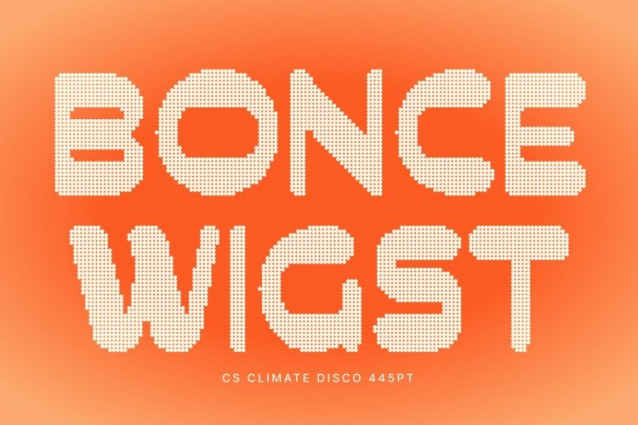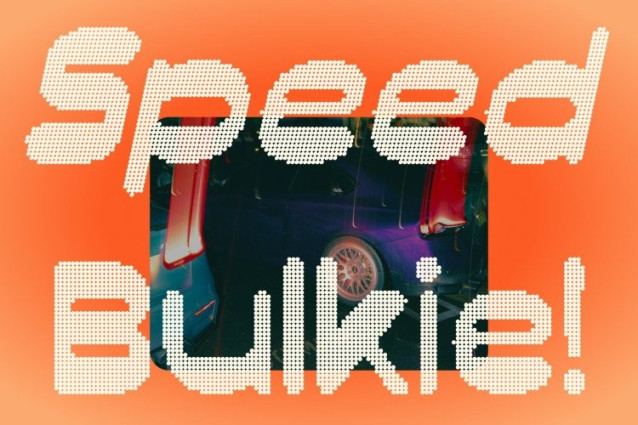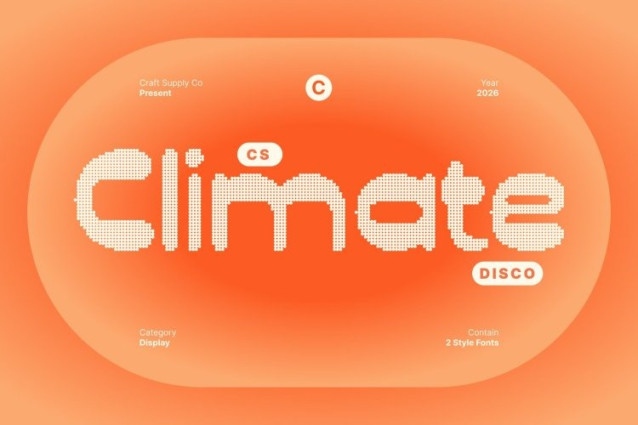
CS Climate Disco Font
CS Climate Disco Font This is a bold, modern sans serif that fuses innovative typography with vibrant disco-inspired energy. Its reverse-contrast construction creates striking visual tension, while smooth modular curves bring a sense of rhythm and motion like type that pulses under club lights. The result is a confident, stylish font that balances professional precision with playful energy.
Rounded Modular Shapes with Dynamic Rhythm
Each character combines geometric strength with soft, rounded edges, creating a harmonious blend of technical precision and lively movement. The modular design adds flow and balance, giving text a dynamic, almost musical quality that makes headlines, posters, and logos feel energized and modern.
Retro Inspiration Meets Futuristic Style
Drawing subtle cues from mid-century and industrial design, this font nods to classic forms while staying rooted in contemporary aesthetics. The reverse contrast adds a vintage touch, giving the font a unique personality that feels both timeless and on-trend perfect for editorial layouts, event branding, and standout visual identities.
Perfect for Branding, Posters, and Nightlife Campaigns
Whether for bold logos, festival posters, packaging, or digital promotions, this font delivers visual impact with style and sophistication. Its versatile design ensures clarity, creativity, and modern charm across both print and screen, making it ideal for designers who want a fresh, energetic, and memorable display font